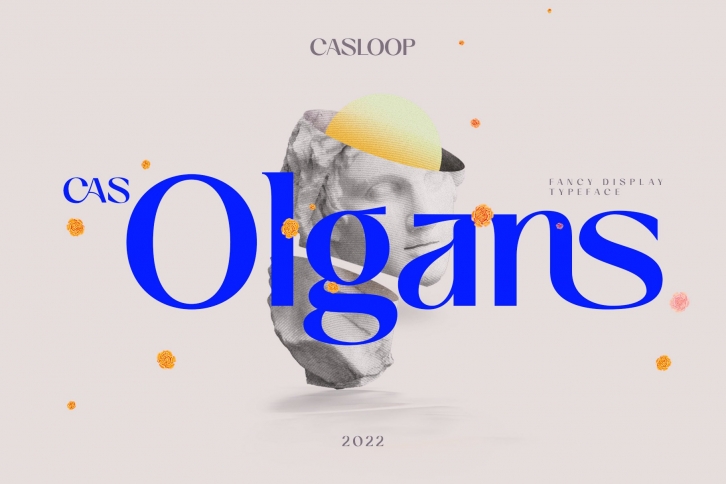
Cas Olgans is a semi-serif display font with a Renaissance nuance, combined with the tendency of modern typefaces to align with current trends. It has a light look without excessive accents, which makes it incredibly versatile for a wide pool of creative projects.